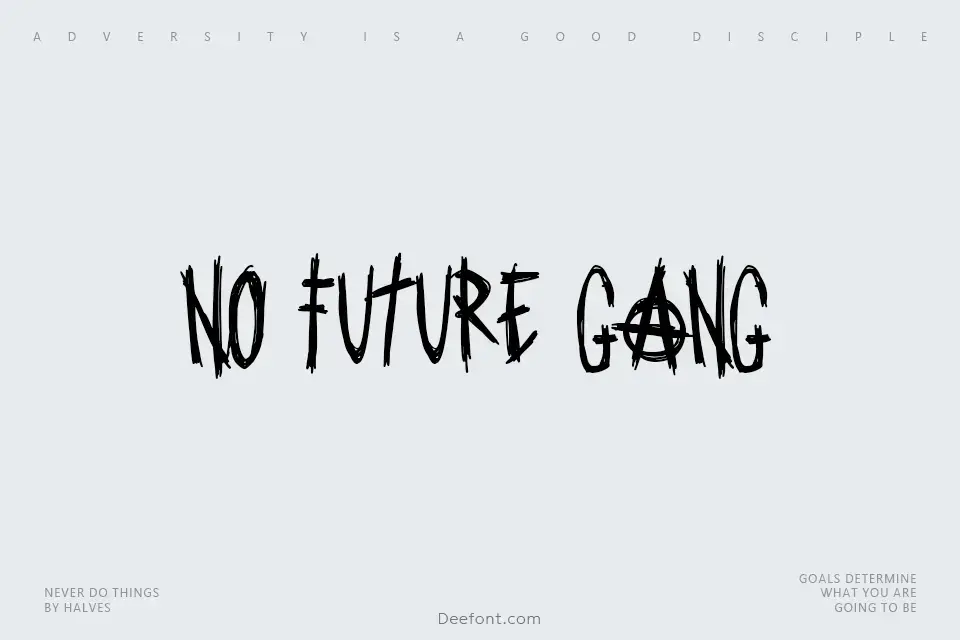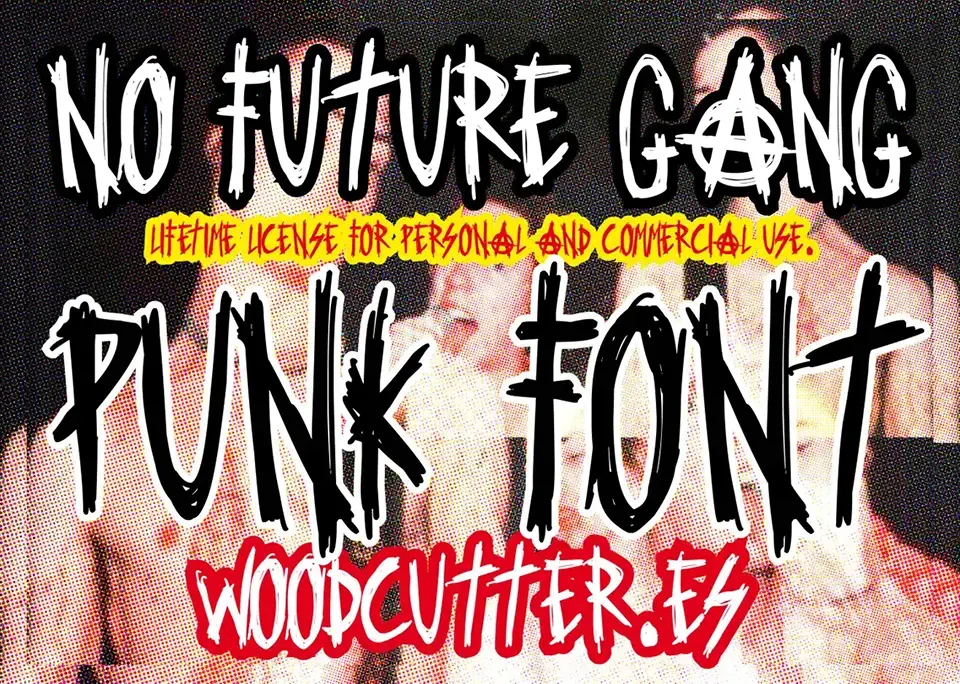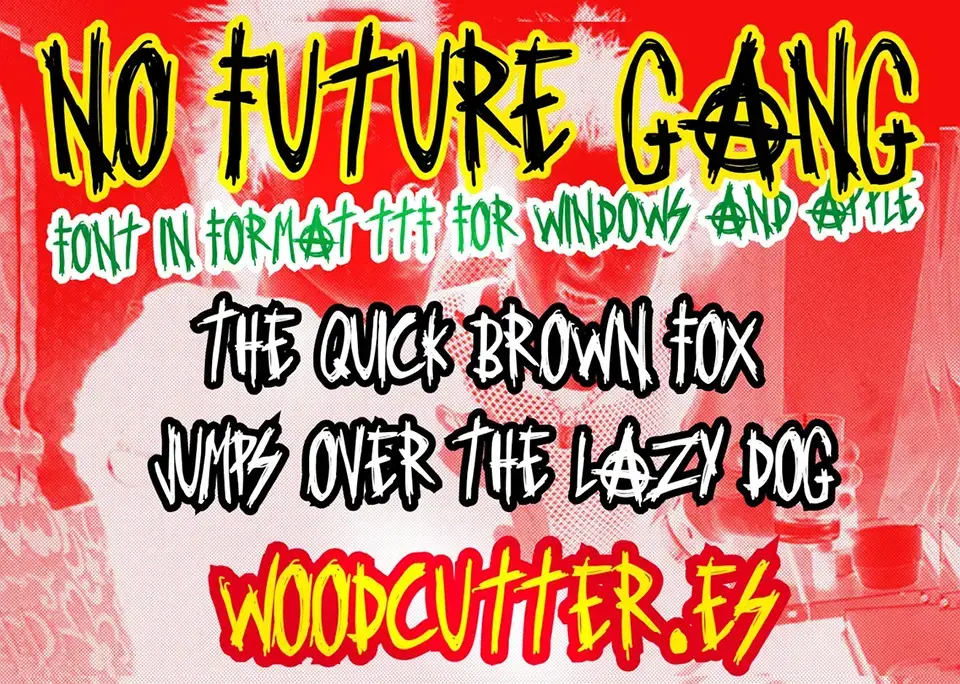
No Future Gang Font
No Future Gang is an audacious punk-inspired display typeface that channels raw rebellion through condensed letterforms and distressed characteristics. This script font exudes an edgy, trash aesthetic ideal for creating striking visual impact on posters, music album covers, and street art projects. With its unique urban sensibility and rugged appearance, it captivates designers seeking to infuse authentic punk attitude into headlines, logos, and provocative branding statements. The font’s distinctive style makes it an excellent choice for high-impact display typography wherever bold, unconventional design is desired.